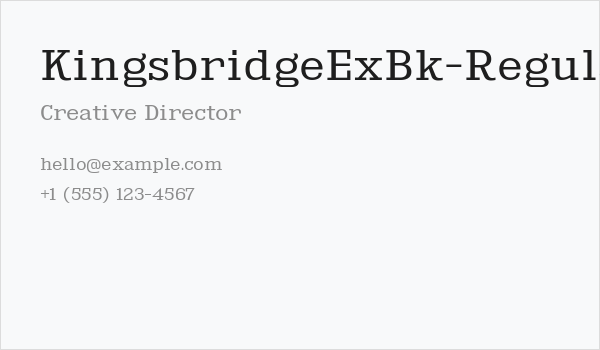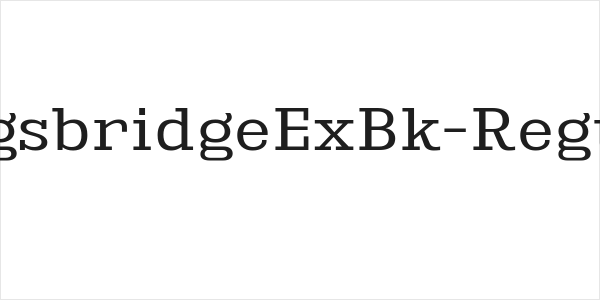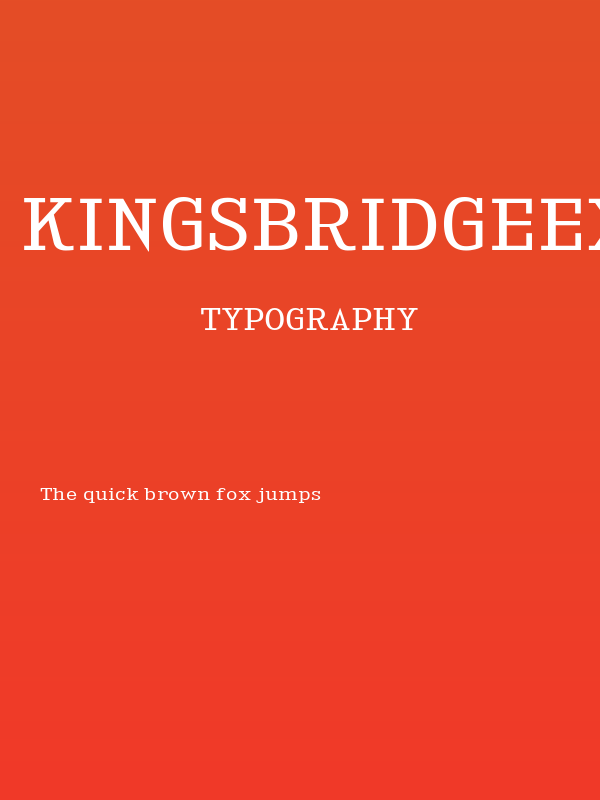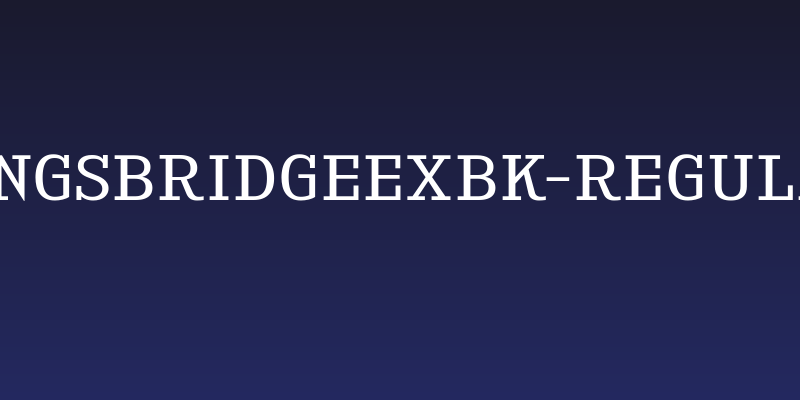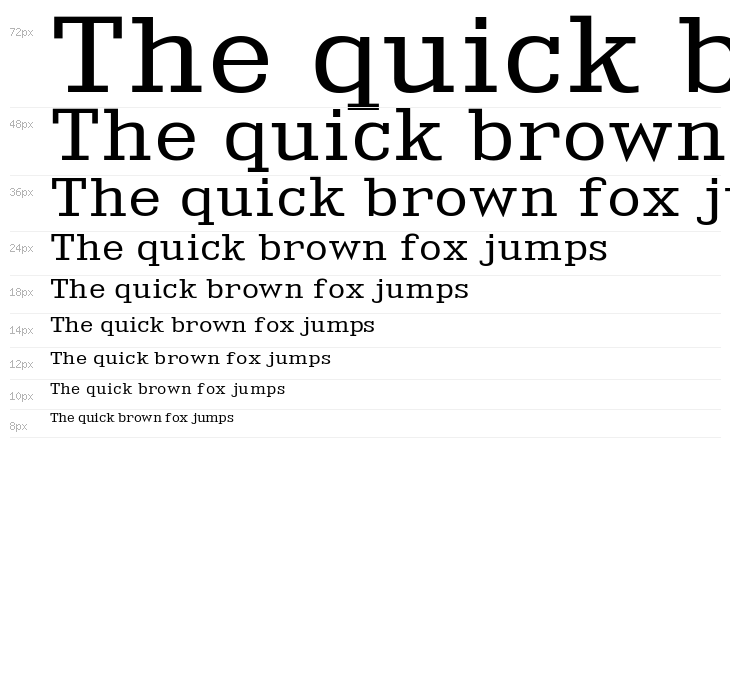
KingsbridgeExBk-Regular Font
KingsbridgeExBk-Regular Description
This font features a classic serif design with a strong emphasis on readability and elegance. The uppercase letters are bold and commanding, while the lowercase letters maintain a consistent and balanced appearance. The numerals are clear and distinct, making them suitable for both display and text purposes. Special characters are well-defined, adding versatility to the font's use. The overall design is reminiscent of traditional serif fonts, yet it incorporates modern elements that make it suitable for contemporary applications.
| Proposed Projects | Ideal for editorial design, book covers, formal invitations, and branding projects requiring a touch of sophistication. |